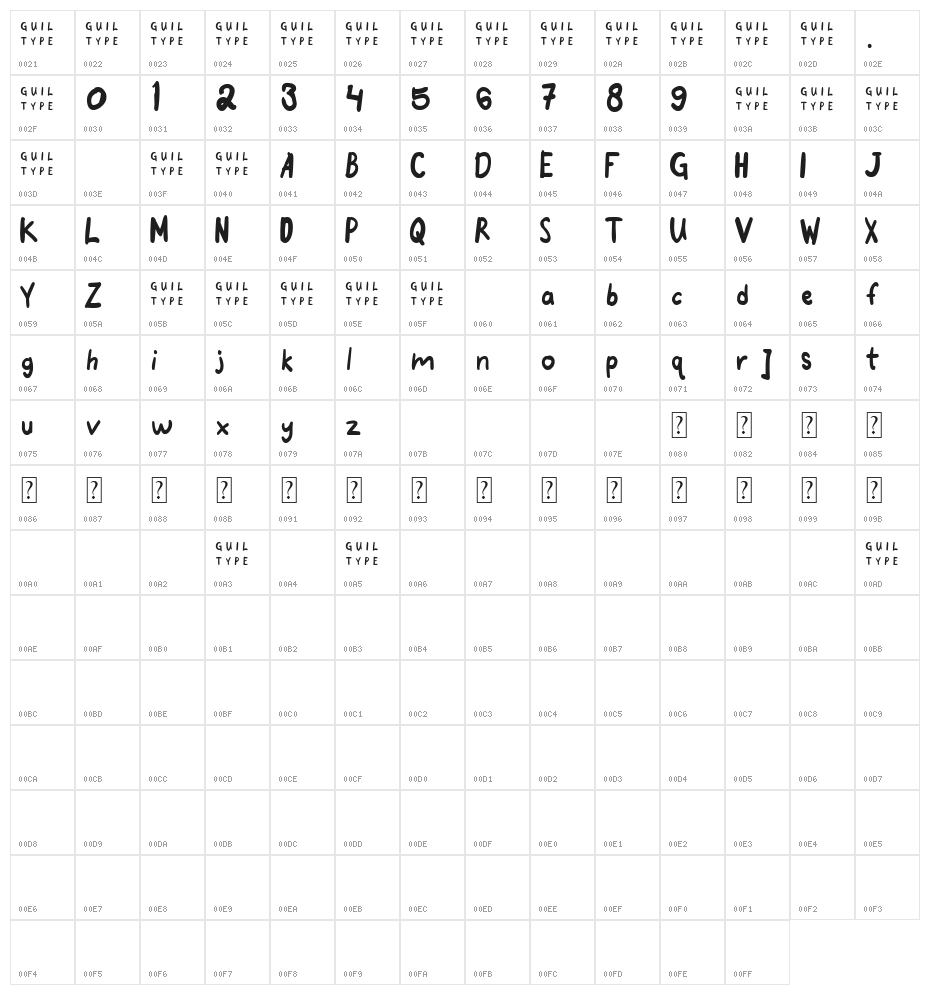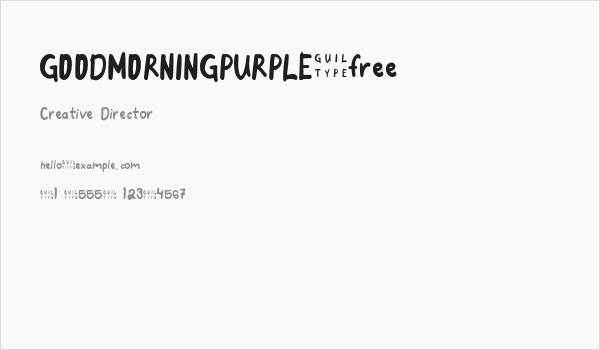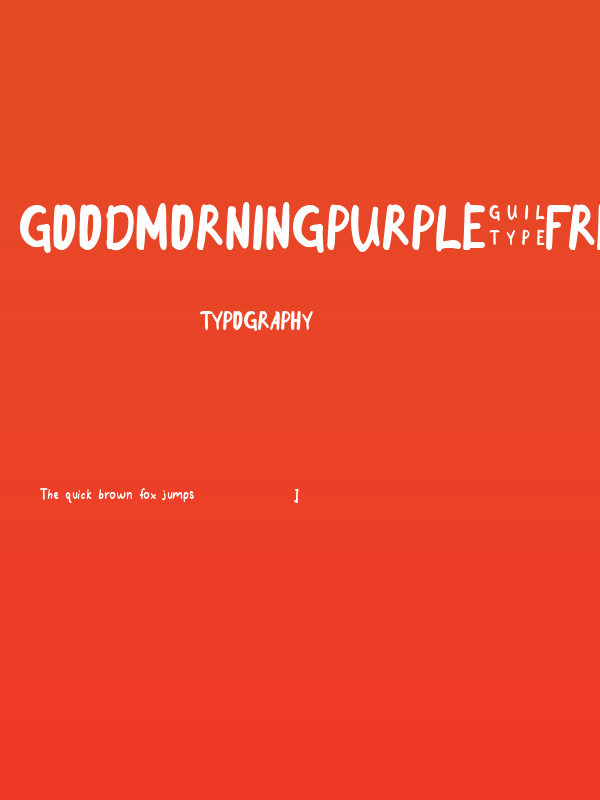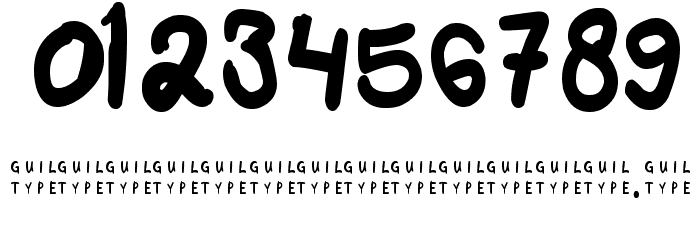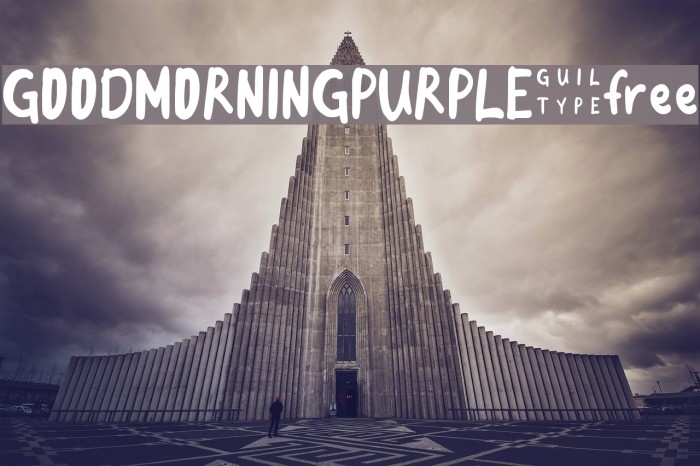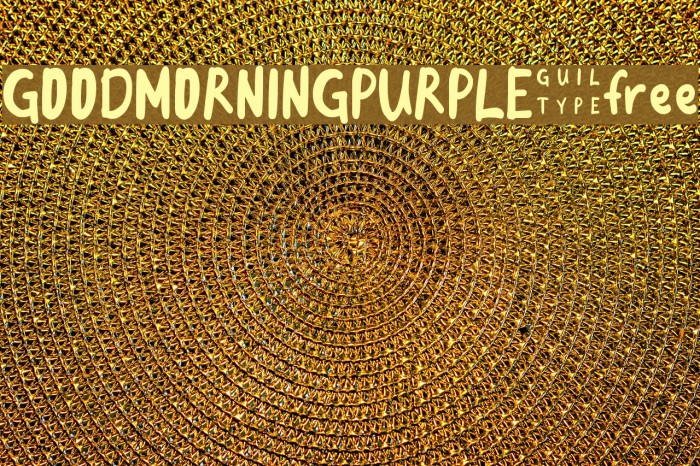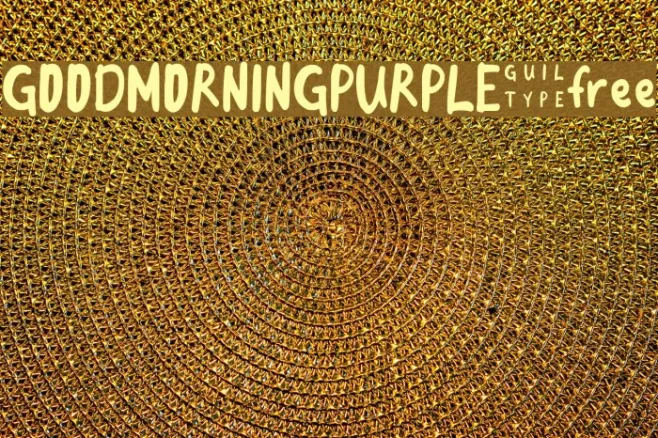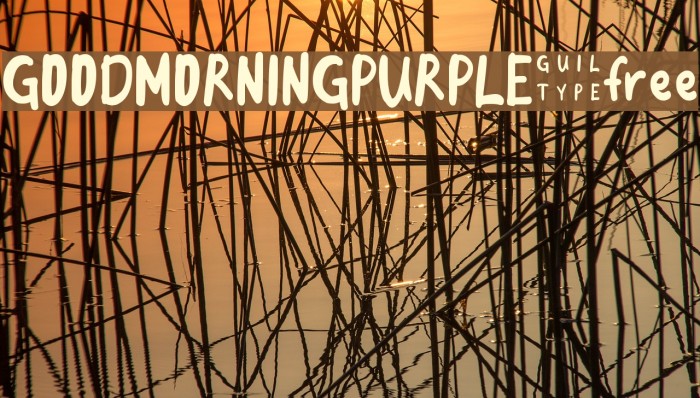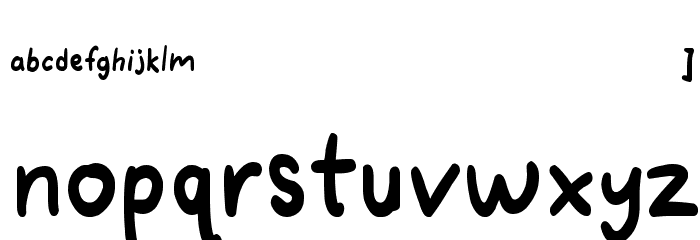
GOODMORNINGPURPLE-free Font
GOODMORNINGPURPLE-free Description
This playful and bold font features a handwritten style with rounded edges, giving it a friendly and approachable appearance. The characters are slightly irregular, adding a whimsical touch that enhances its charm. The uppercase letters are bold and prominent, while the lowercase letters maintain a consistent flow with a slightly smaller size. The numbers are equally bold, ensuring readability. The special characters are creatively integrated, maintaining the overall playful aesthetic. This font is perfect for projects that require a fun and informal vibe.
| Overall Style | Playful |
| Use Case | Headlines, Logos, Informal Text |
| Proposed Projects | Ideal for children's books, playful branding, greeting cards, and casual invitations. |